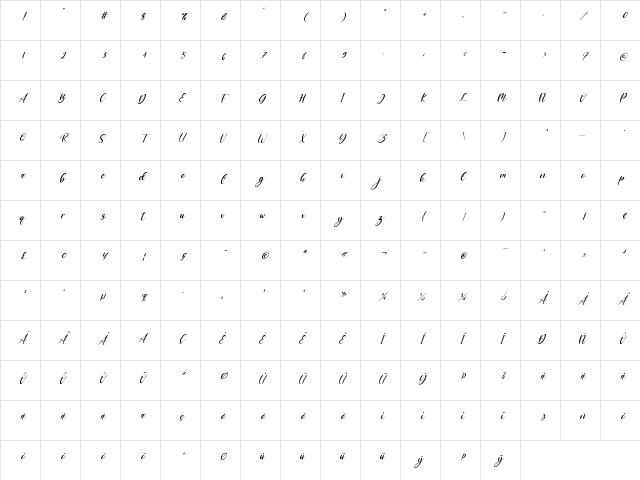
Complete Varenthin Italic Regular glyph index. Displaying only characters natively supported by Varenthin Italic Regular font.
Varenthin Italic is a composed and adaptable typeface that performs quietly and consistently across a wide range of design contexts. The slanted form adds forward momentum and visual energy. Its slender proportions lend an understated elegance to any composition.
Pro Tip: Use Varenthin Italic for emphasis, pull quotes, and subheadings where its slanted energy can add rhythm to the layout.